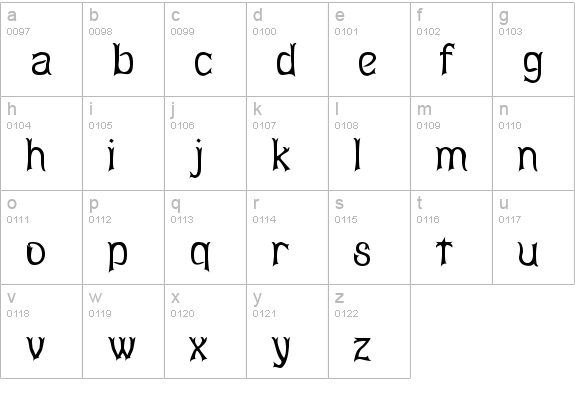
AbagailJackson Font Details
Introducing AbagailJackson font - a visually stunning and versatile typeface that exudes elegance and sophistication. This font features a unique blend of modern and classic elements, making it perfect for a wide range of design projects. With its sleek lines and graceful curves, AbagailJackson font adds a touch of refinement to any text or headline. One of the best things about AbagailJackson font is that it is completely free to download. Yes, you read that right - this exquisite font can be yours at no cost! Simply head over to FontsMarket.com and grab your copy today. Whether you're working on a branding project, creating invitations, or designing a website, AbagailJackson font is sure to elevate your designs to the next level. Don't miss out on this incredible opportunity to enhance your creative endeavors with the beauty and charm of AbagailJackson font. Download it now and see for yourself the magic it brings to your projects!